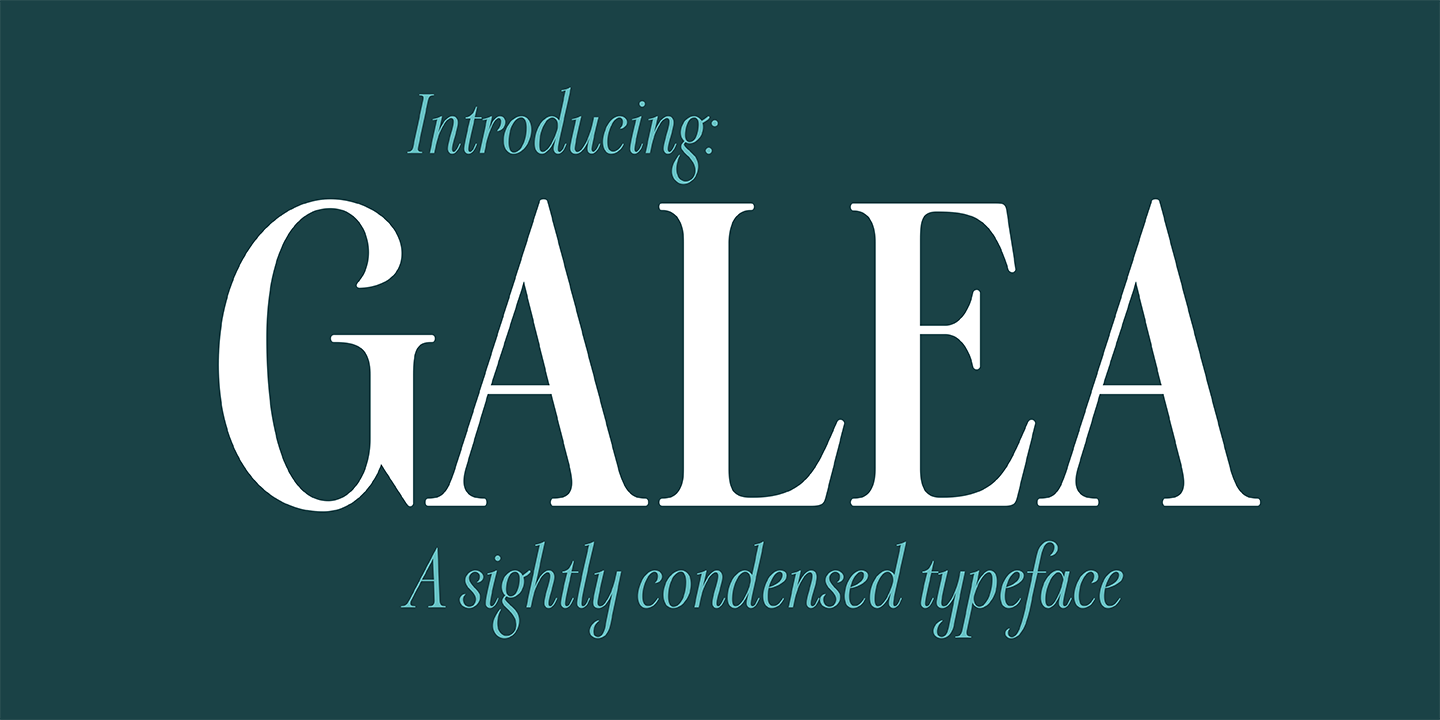
The Galea Display Font is an outstanding choice for projects that demand a bold, distinctive, and attention-grabbing presence with a contemporary edge. It’s perfectly suited for impactful headlines, poster design, luxury branding, fashion editorials, packaging for premium products, album art, and any design that benefits from a strong, unique, and memorable typeface. Its assertive and stylish character makes it ideal for conveying a sense of modern sophistication, artistic flair, and undeniable visual impact.
What makes Galea Display Font so exciting is its inherent ability to transform text into a powerful graphic element. It often features sharp angles, unique ligatures, and distinctive letterform constructions that give your headlines an immediate sense of curated design and high-end appeal. This font isn't just about reading words; it's about making a striking visual statement that captures attention and leaves a lasting impression. It excels at delivering maximum visual impact, ensuring your key messages pop with an undeniable sense of modern artistry and commanding presence. Its unique design often makes it feel custom-made, adding an exclusive touch to your work.
The Galea Display Font family typically focuses on variations that enhance its powerful and stylistic nature, as display fonts are designed for impact at larger sizes. You’ll generally find a strong regular style that embodies its core distinctive aesthetic. Depending on the specific design, some versions might offer subtle alternative characters, stylistic sets, or a limited range of weights (e.g., Light and Bold) to provide more versatility while maintaining its signature ornamental or geometric appeal. The emphasis is on providing a consistent yet visually arresting identity that resonates with its high-impact inspiration.
Whether you're creating a captivating advertising campaign, designing a prestigious brand identity, or crafting stunning editorial layouts, the Galea Display Font Free Download offers an indispensable tool. Its artistic appeal and commanding visual presence make it a premier choice for any project that requires a typeface of exceptional beauty and distinctive character.